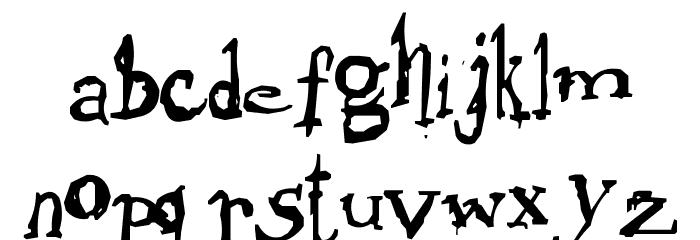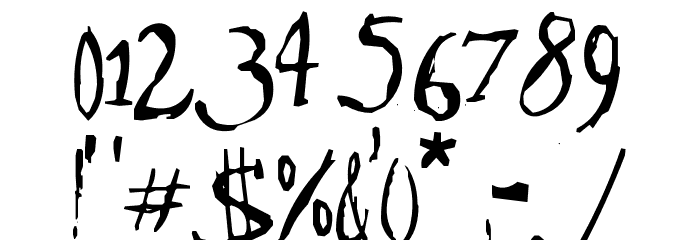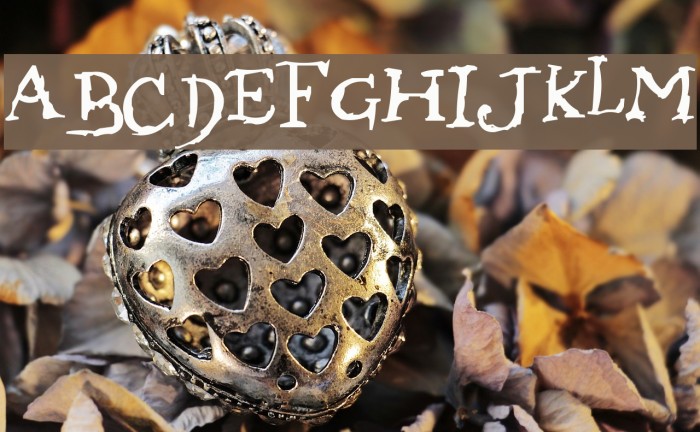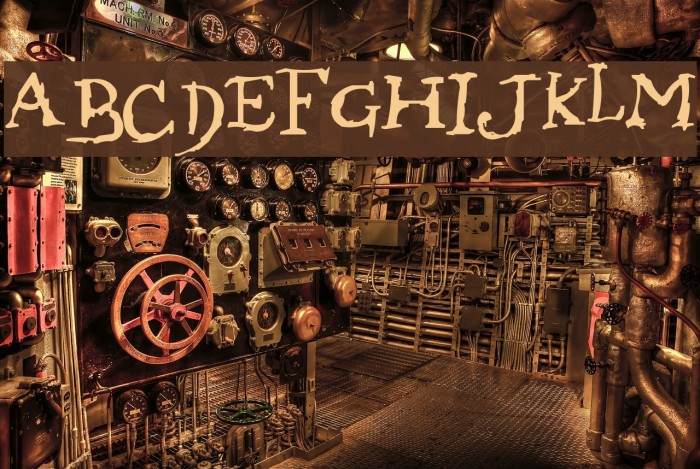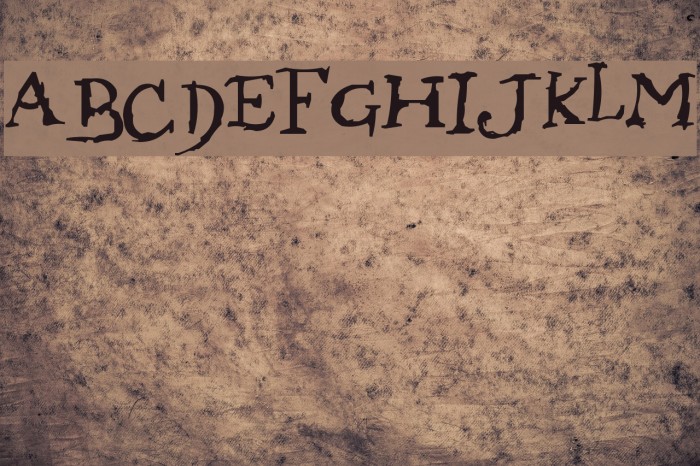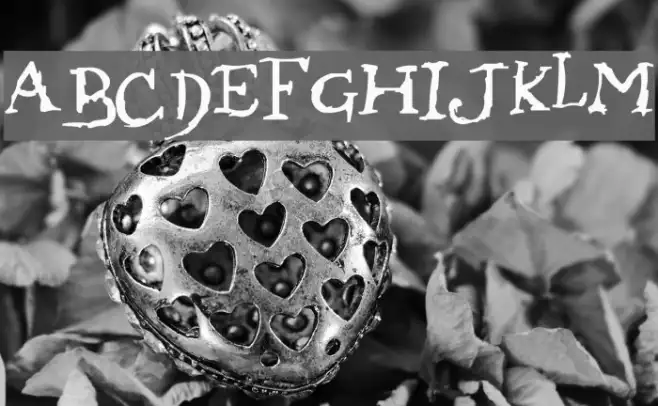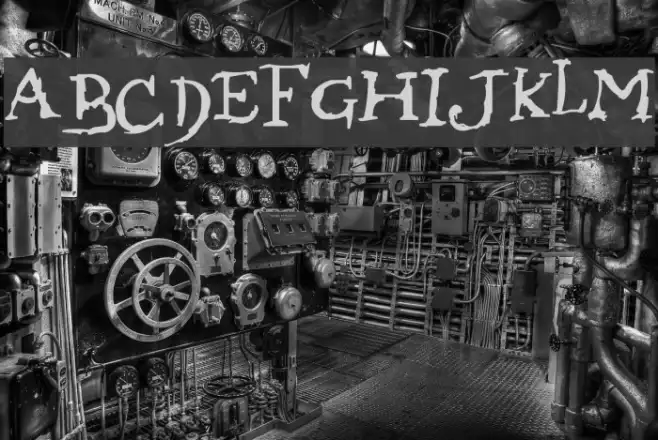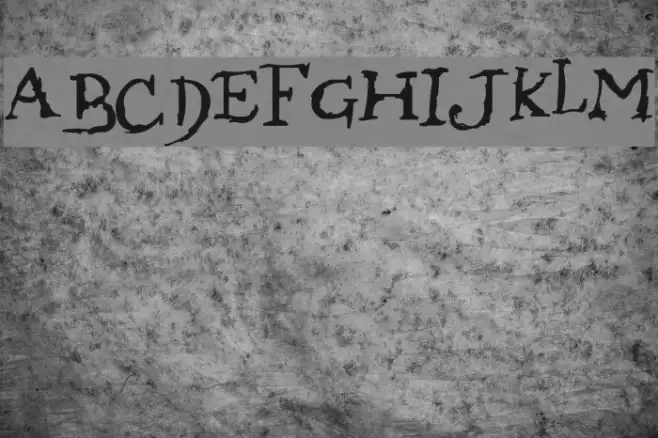
Morphine Jack Font
This font exhibits a rugged and distressed style, reminiscent of hand-drawn or brush-stroke lettering. The characters are unevenly shaped, with irregular edges and varying stroke thickness, giving it a raw and organic appearance. The uppercase letters are bold and commanding, while the lowercase letters maintain a consistent yet quirky style. Numbers and special characters follow the same distressed aesthetic, adding to the font's overall edgy and artistic vibe. This font is ideal for projects that require a bold statement or an artistic touch, such as album covers, posters, or creative branding.
A rugged, distressed font with an artistic, hand-drawn style.
- Proposed Projects: Album covers, posters, creative branding, artistic projects.
- Overall Style: Artistic, Edgy, Raw
- Use Case: Headlines, Artistic projects, Branding